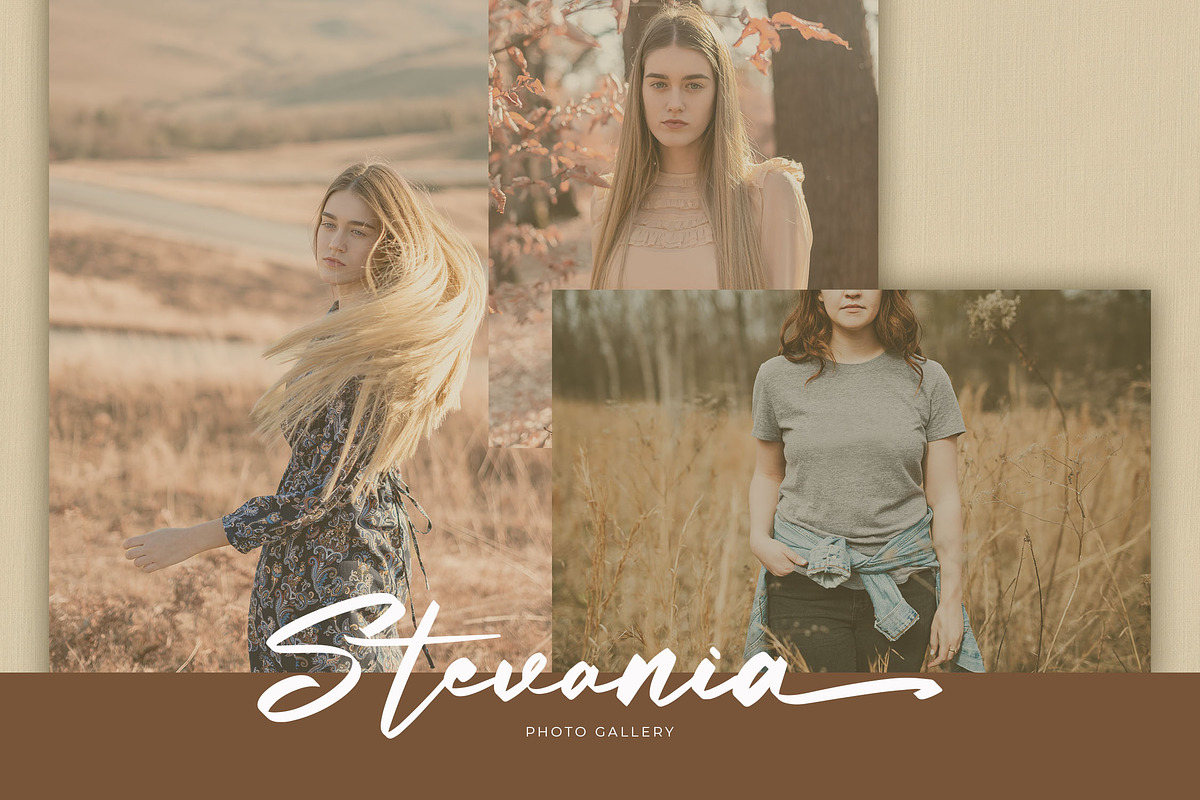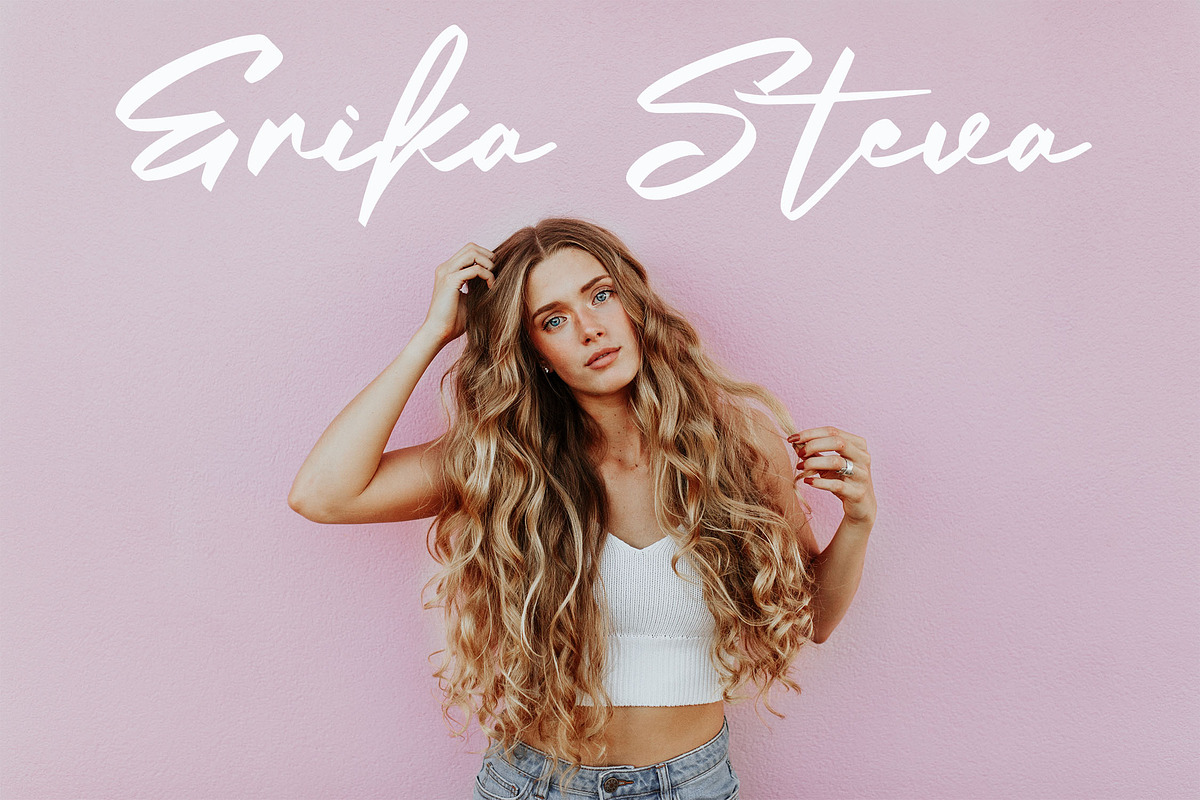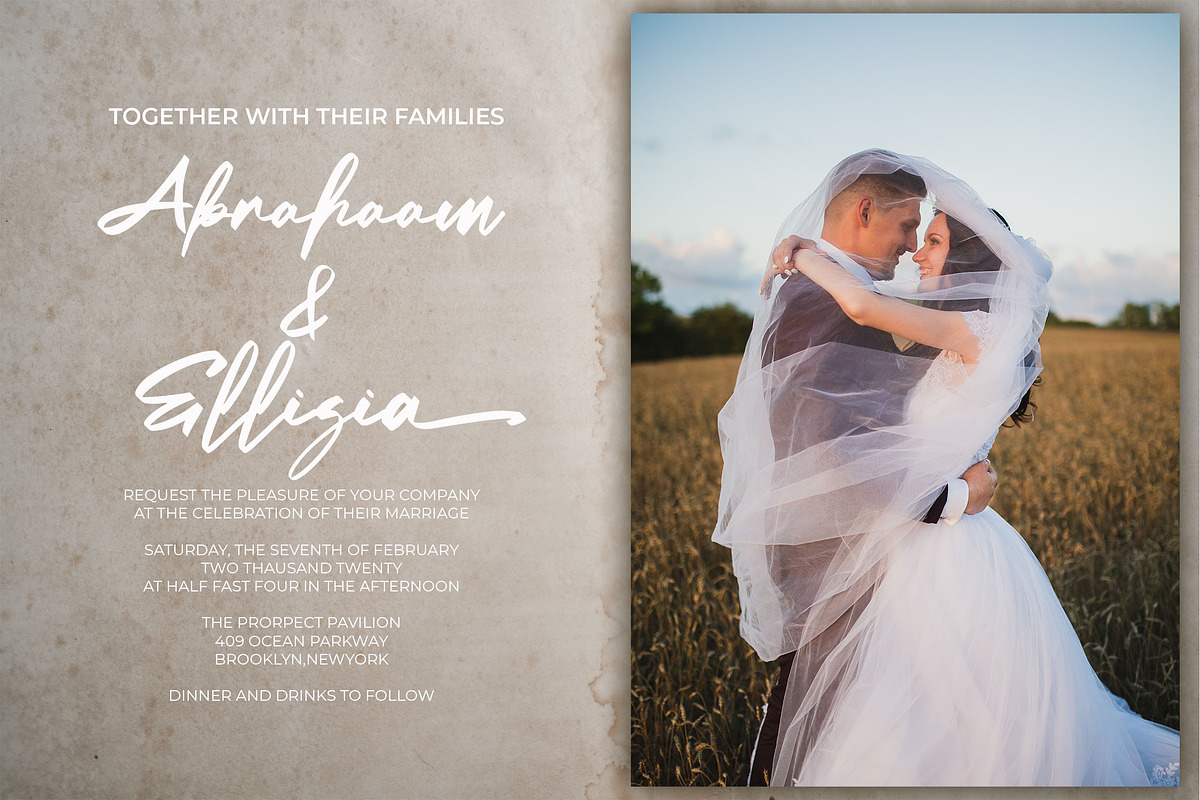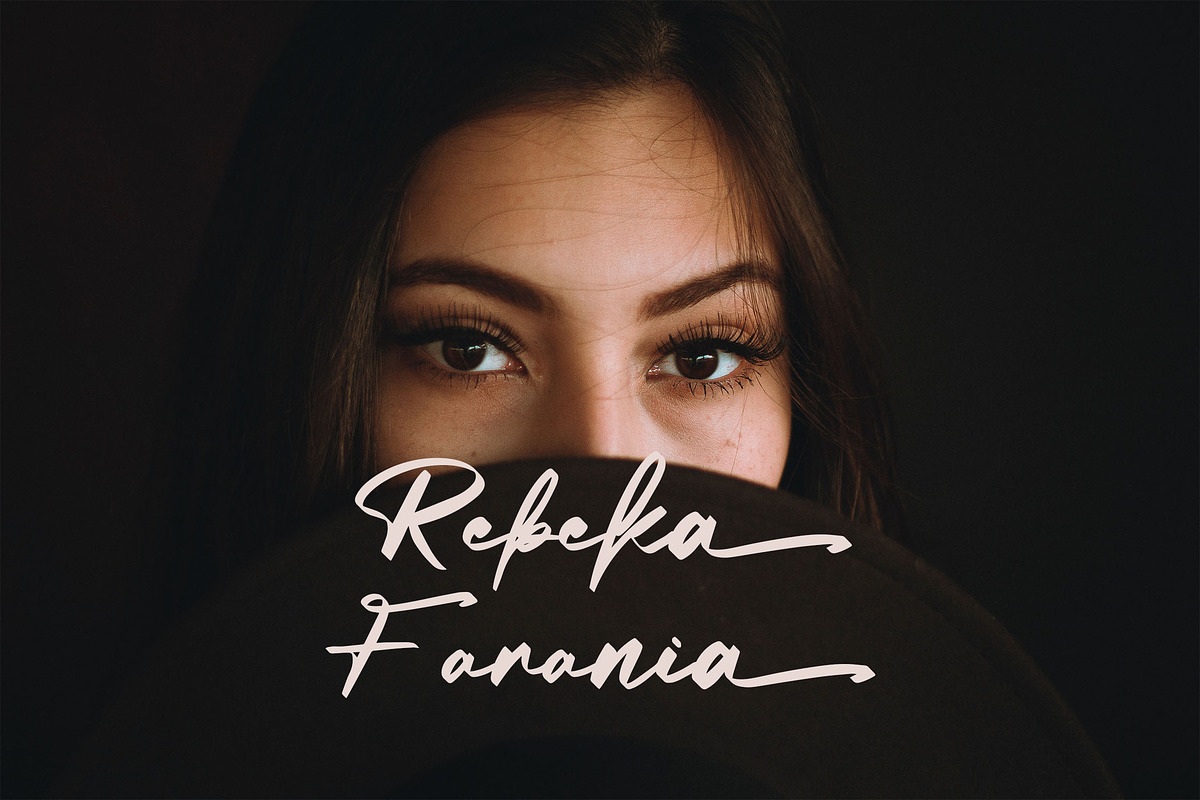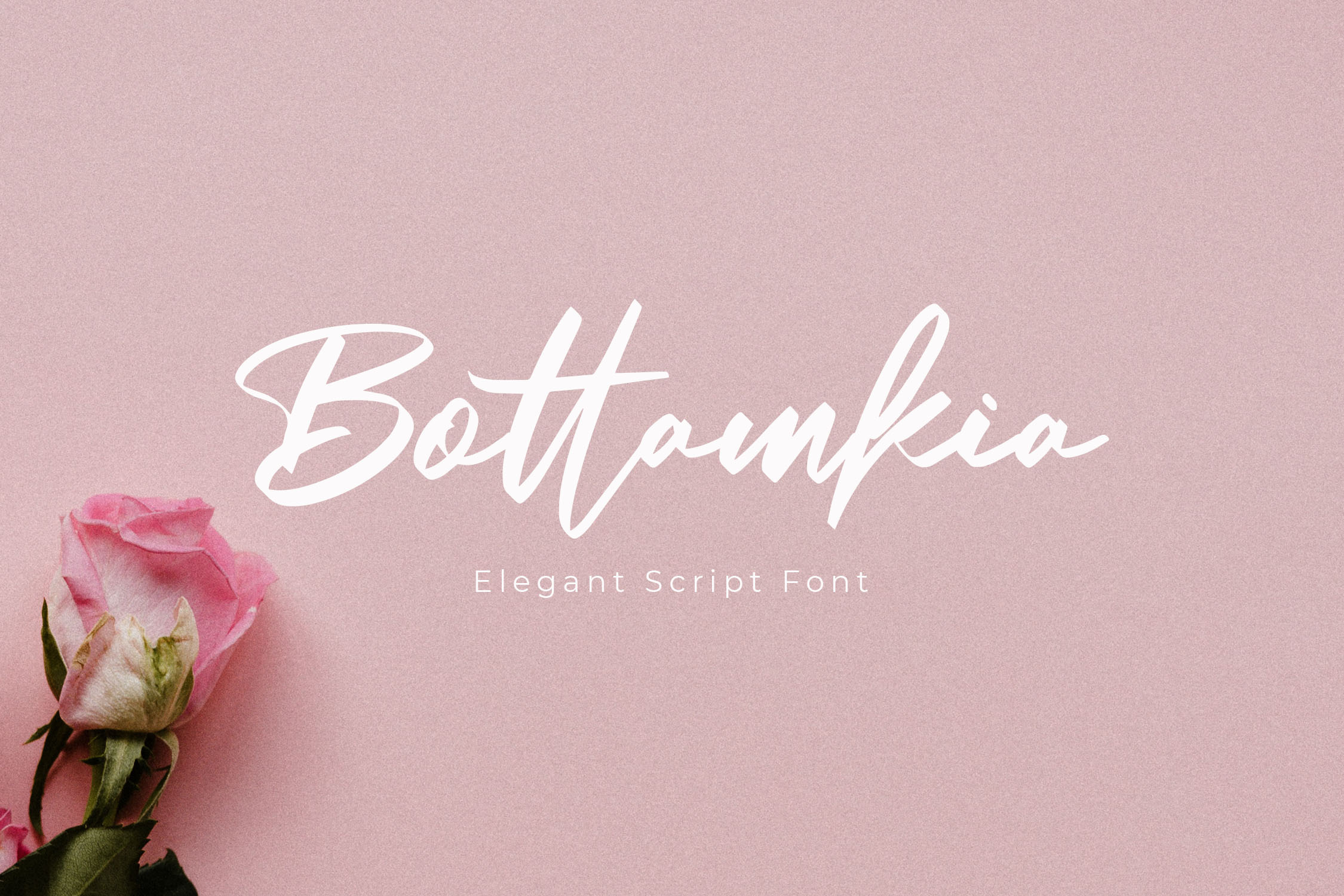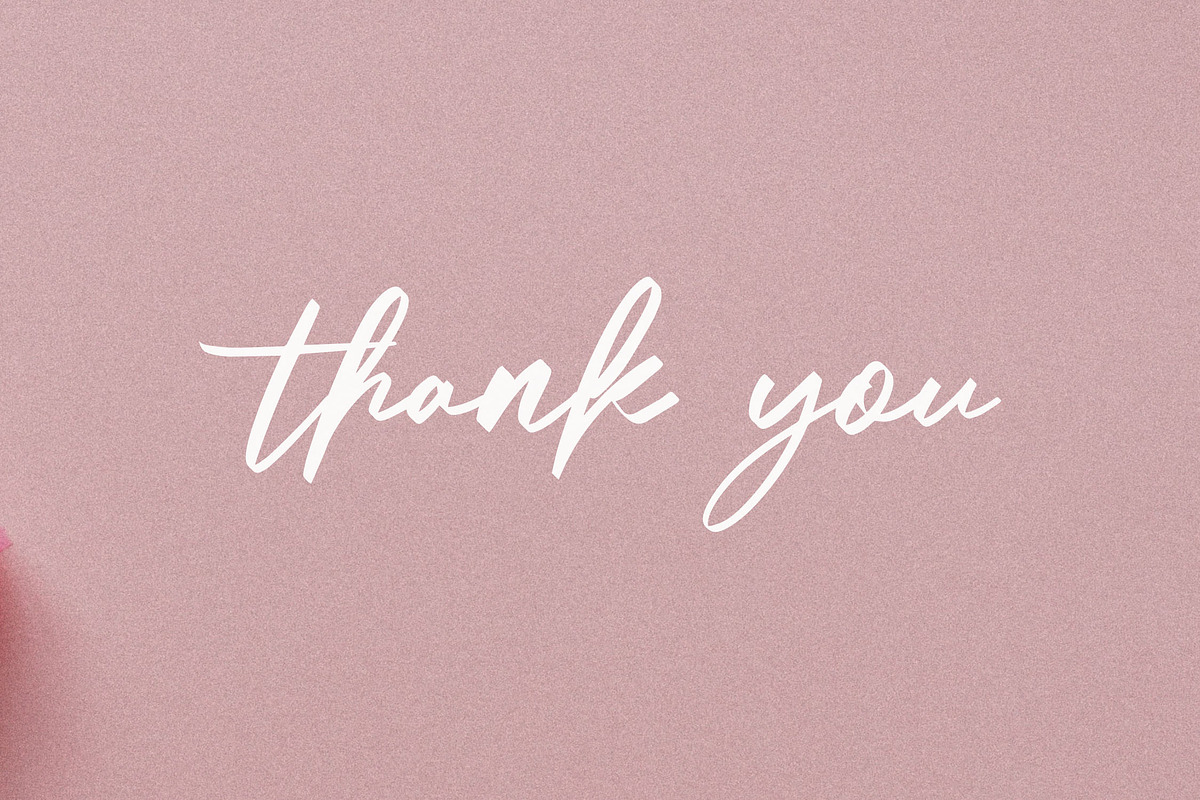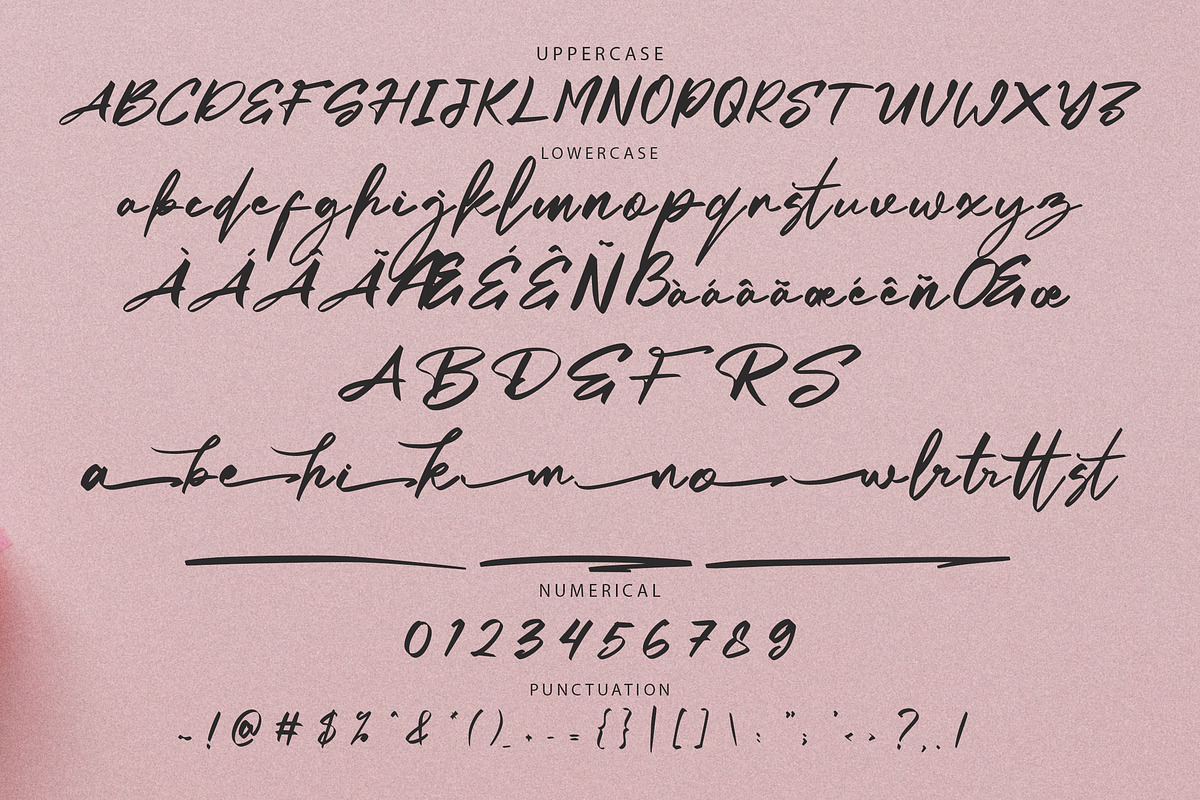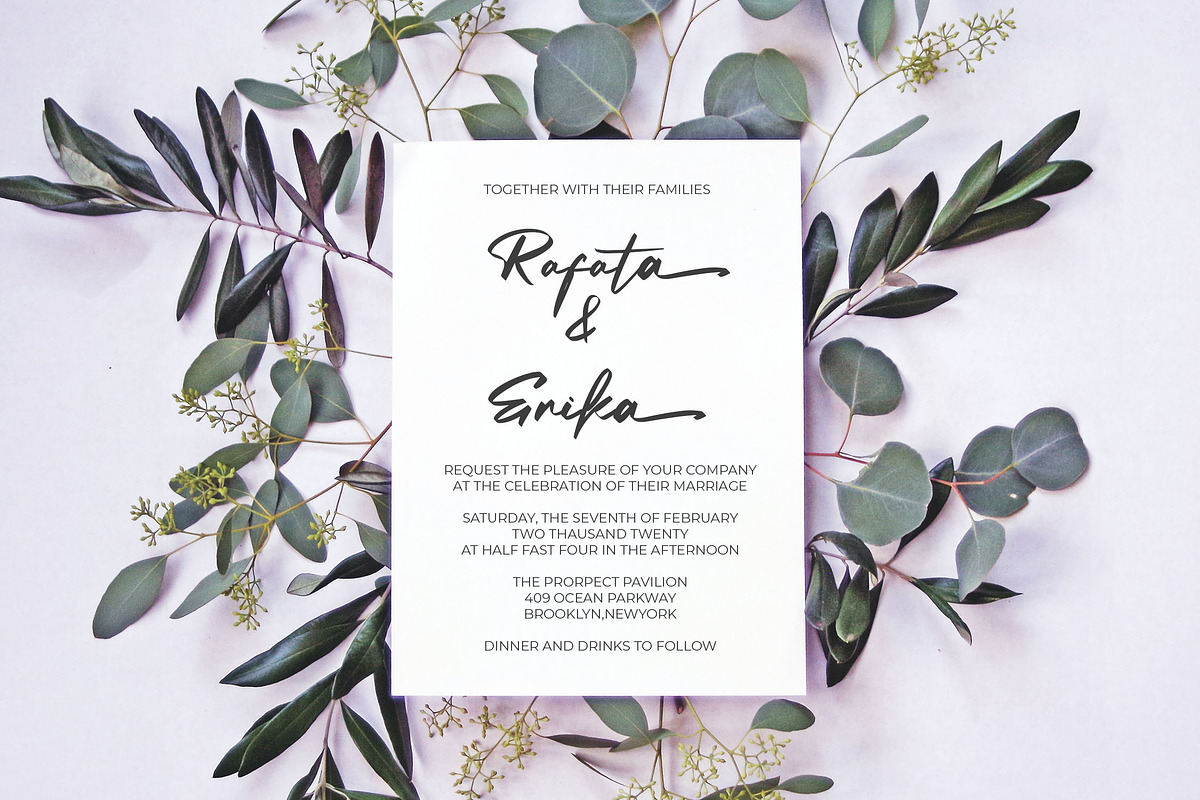
Bottamkia Brush Script Font
Introducing Bottamkia – A Bold Brush Script Font for Eye-Catching Designs!
Bottamkia is a dynamic script font with a bold brush style, perfect for adding a handcrafted, artistic touch to your projects. Its unique and expressive character shapes make it an ideal choice for enhancing product visuals, from branding to packaging. Whether you’re working on logos, posters, or social media graphics, Bottamkia will bring vibrancy and personality to your designs.
- Includes Ligatures for smooth letter combinations
- Stylistic Alternates and Swashes for added customization
- Multilingual support for global versatility